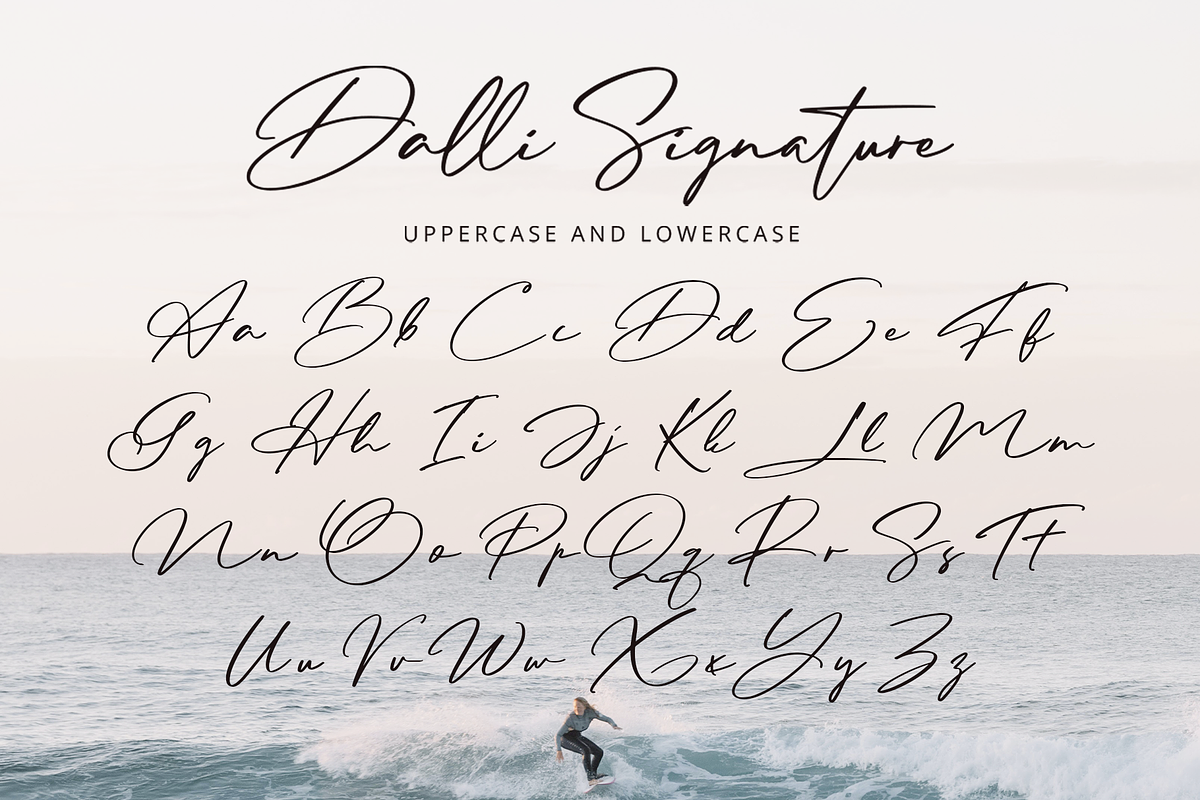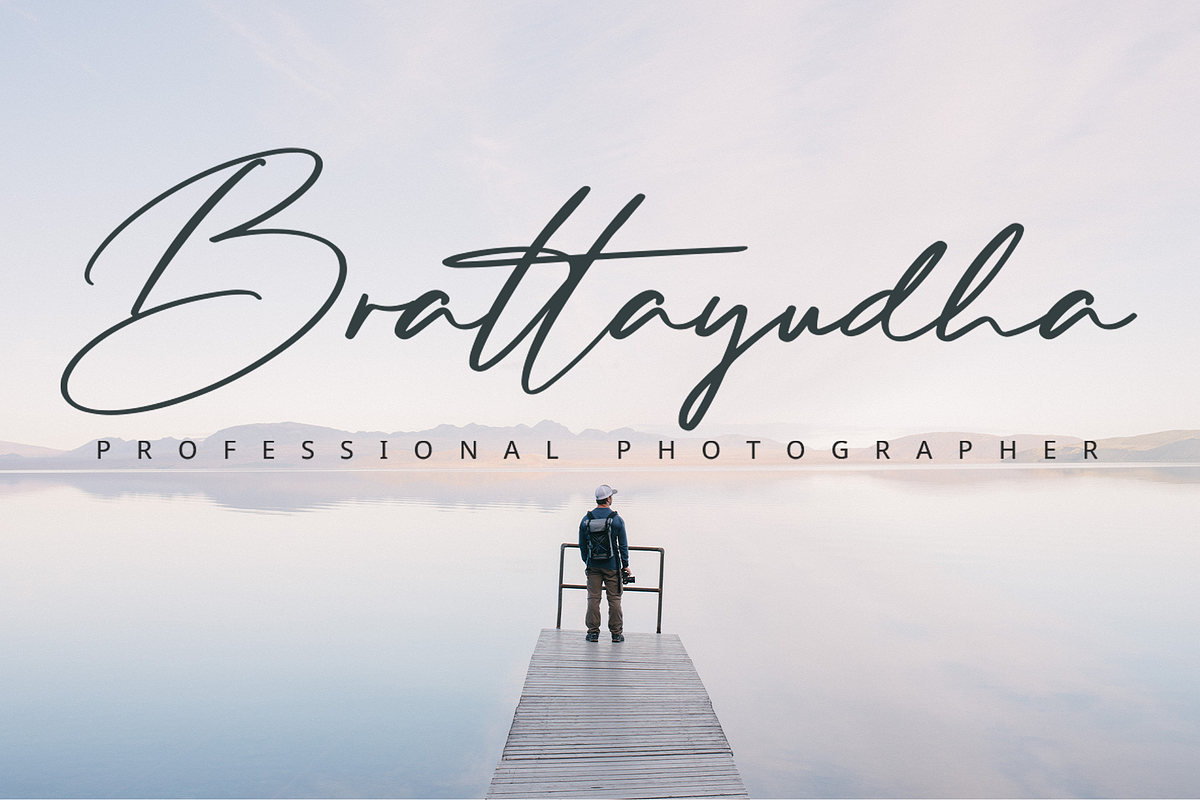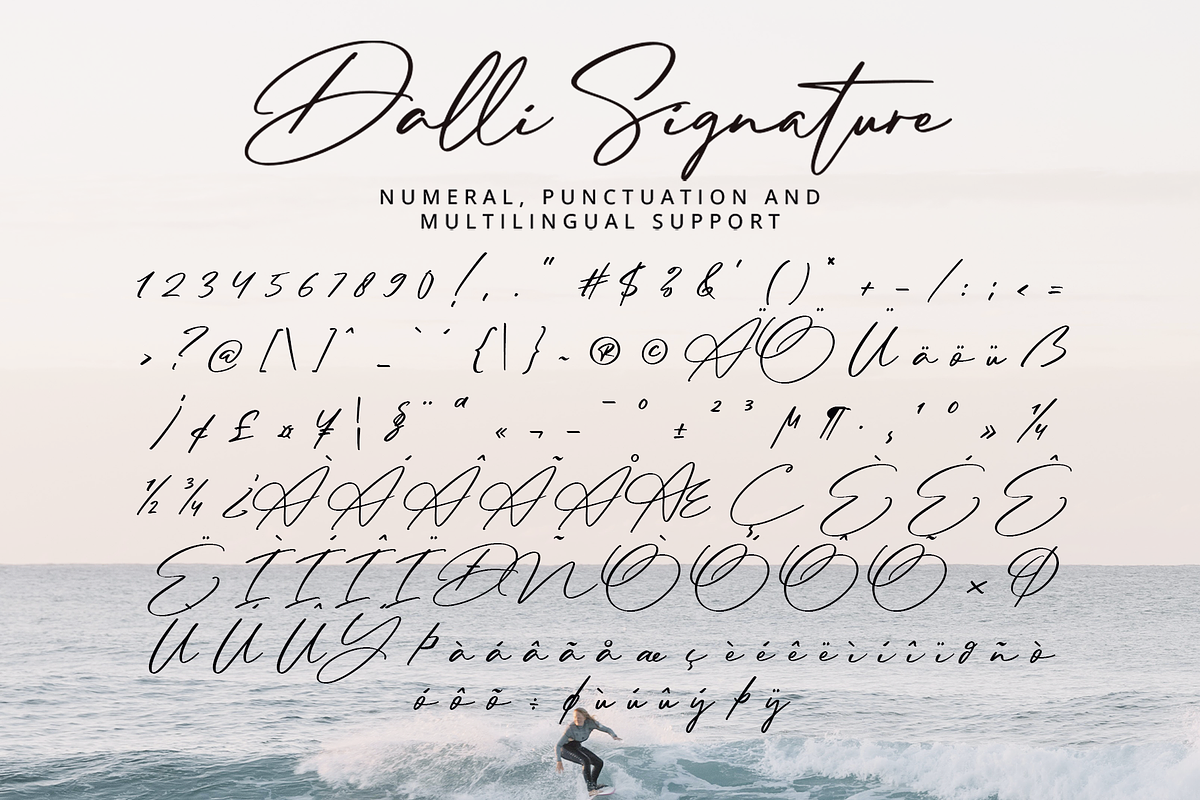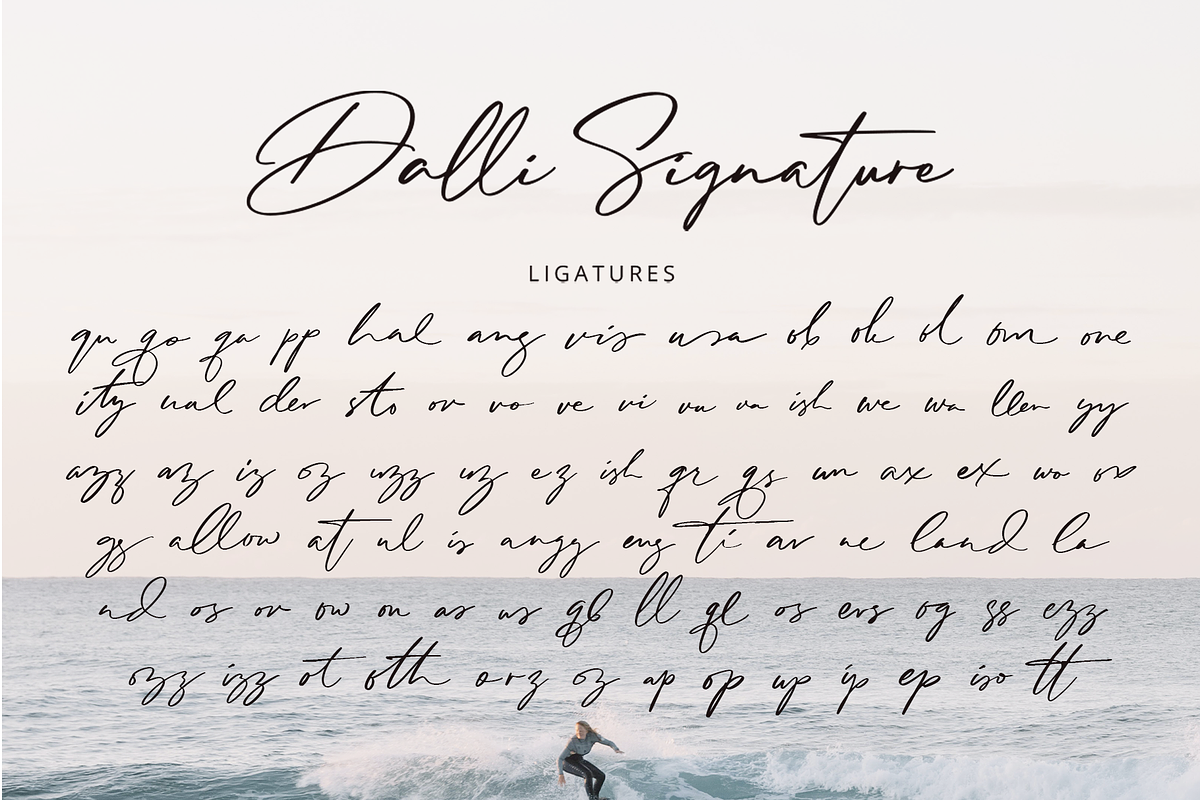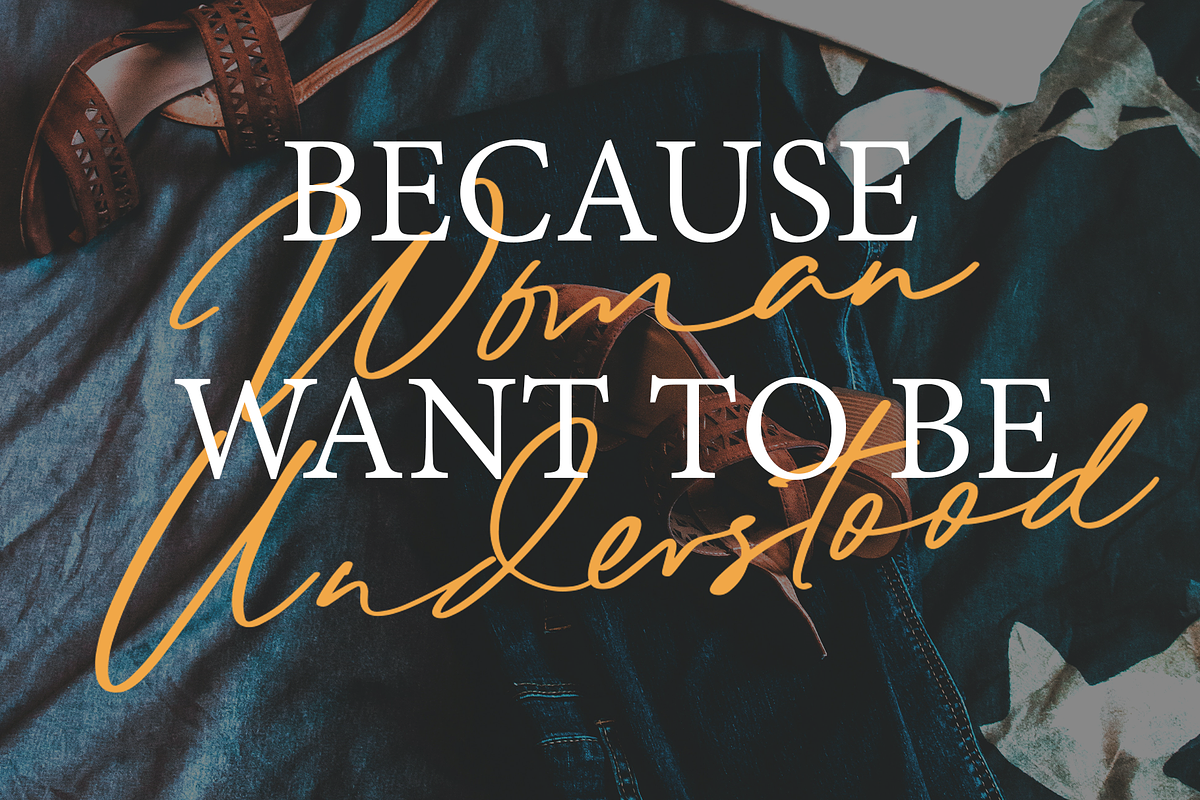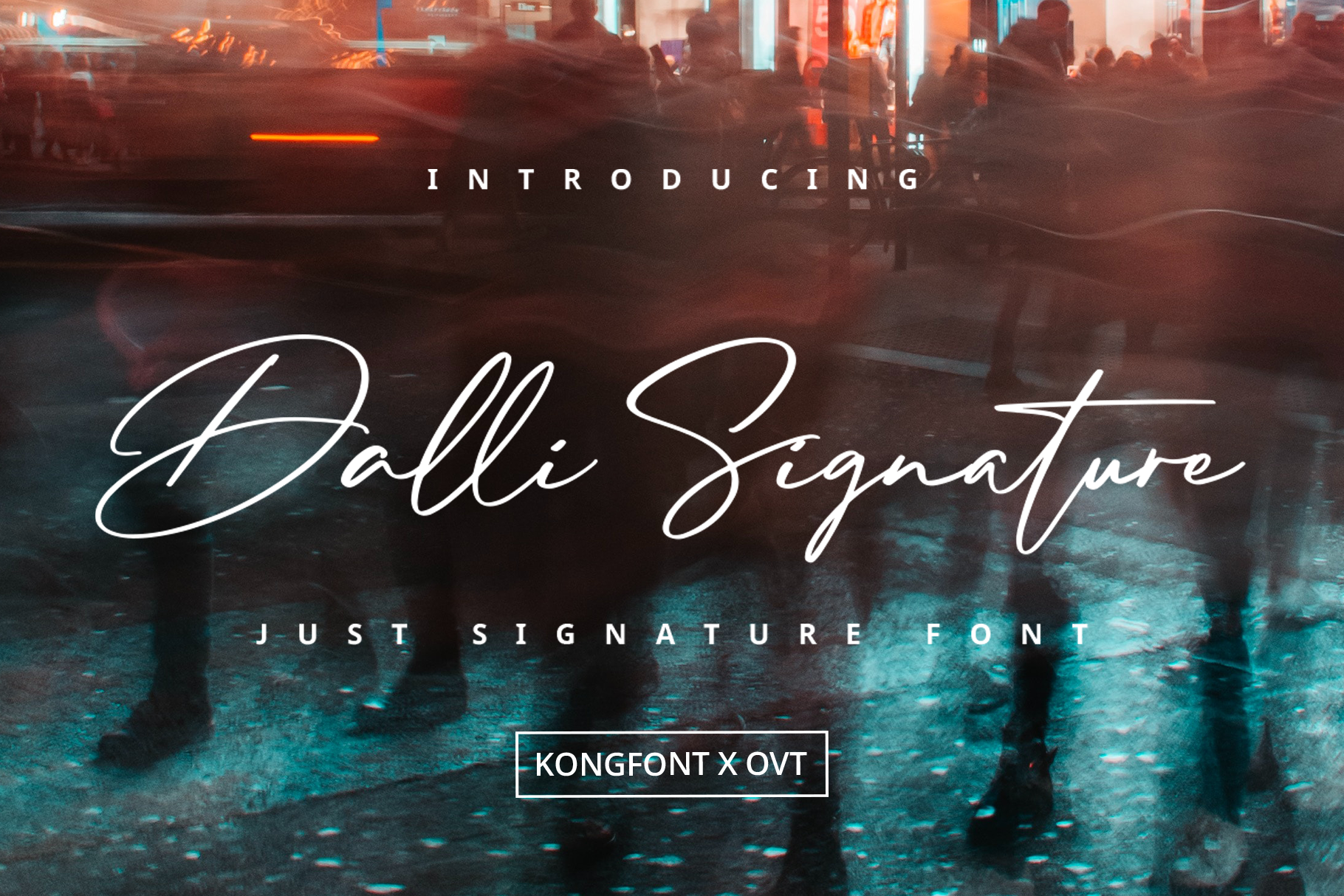
Dalli Signature-Just Signature Font
Dalli Signature - Just Signature Font
Introducing "Dalli Signature," a just signature font that combines elegant simplicity with personal sophistication. Perfect for designers, branding experts, and creatives who want to add a touch of refined elegance to their work, Dalli Signature offers a smooth and authentic script that mimics the beauty of a handwritten signature.
Ideal for personal branding, logos, business cards, invitations, and social media graphics, Dalli Signature’s flowing and graceful strokes provide a timeless and professional aesthetic. Each character is meticulously crafted to reflect the natural movement and elegance of true handwriting, ensuring your designs stand out with a personal and sophisticated touch.
The "Dalli Signature" font includes a full set of uppercase and lowercase letters, numbers, punctuation marks, and a selection of ligatures and stylistic alternates. This versatility allows for seamless integration into various design projects, from bespoke logos to elegant stationery.
Add a signature touch of elegance and sophistication to your designs with Dalli Signature, the font that exudes professional grace and personal charm.